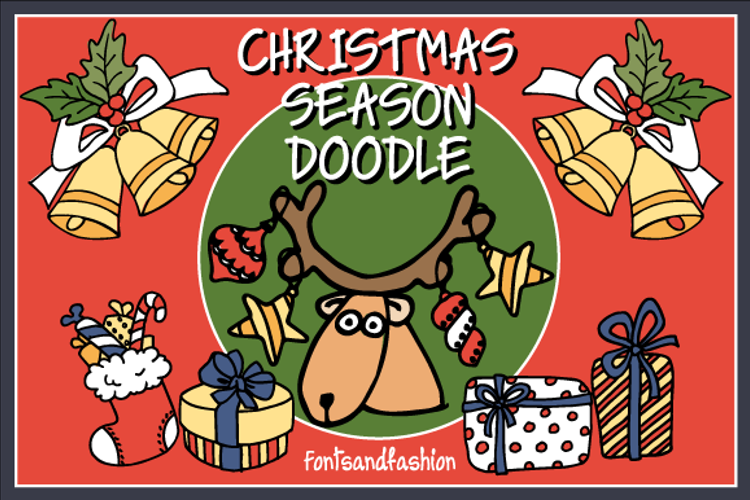
Christmas Season Doodle Font
Oh, oh, oh , oh, Christmas Season is just around the corner...
“CHRISTMAS SEASON DOODLE” Elements font includes 62 cute, whimsical and funny Christmas elements that you can use as complements for party invites, scrapbooking, christmas cards and for any other type of your fun christmas crafting.
Release what your creativity suggest to you for this crazy time...